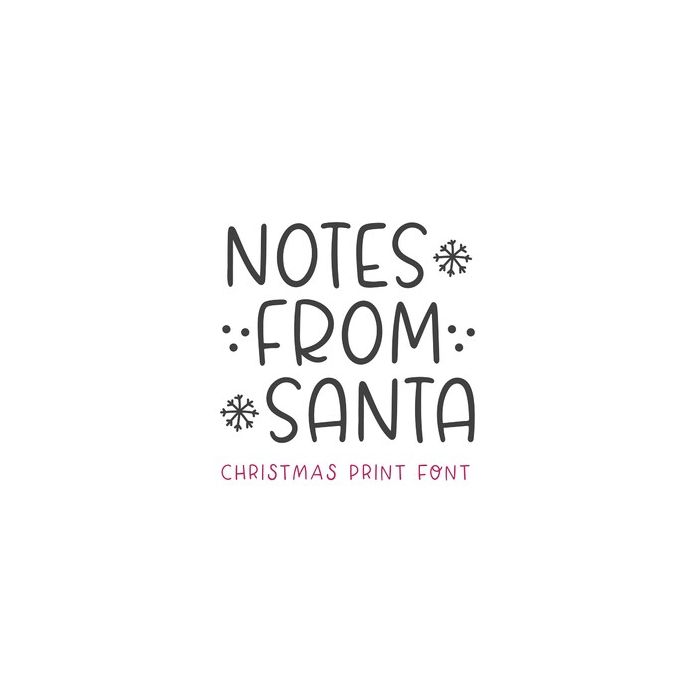
BFC Notes From Santa Christmas Font
Notes From Santa is a handwritten Christmas font. Access the snow by using the * key and the snowflake by using the + key.